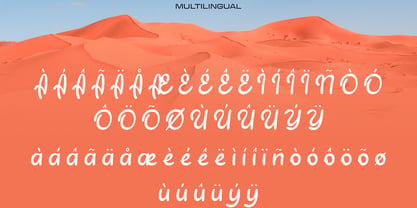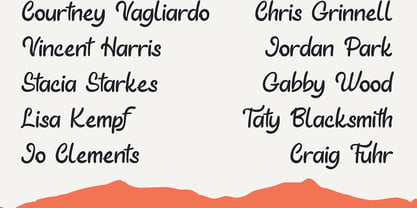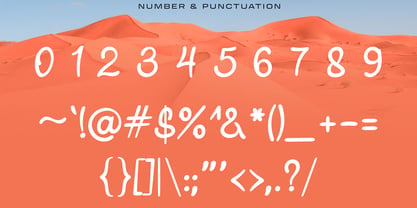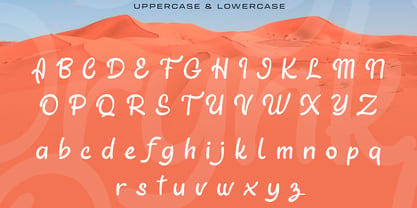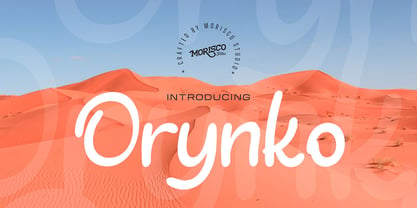
Orynko
by Morisco Studio
The Orynko Font Family was designed by Fathur Rahman and published by Morisco Studio. Orynko contains 1 styles. More about this family
Orynko is a Handwritten typeface with a unique character designed by Morisco Studio. This typeface is well-suited for headlines and any project, like branding, print templates, logos, and more.
Features:
* Uppercase & Lowercase
* Symbols & Punctuation
Designers: Fathur Rahman
Foundry: Morisco Studio